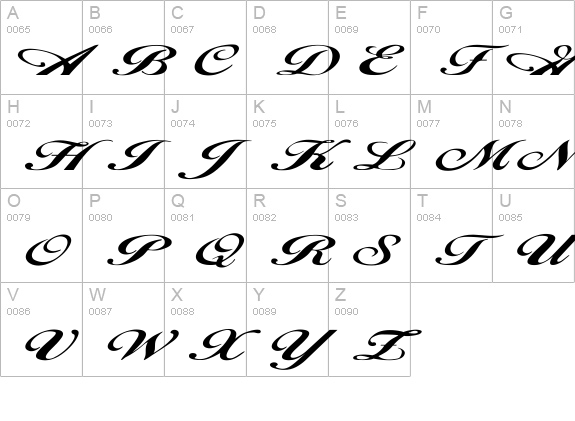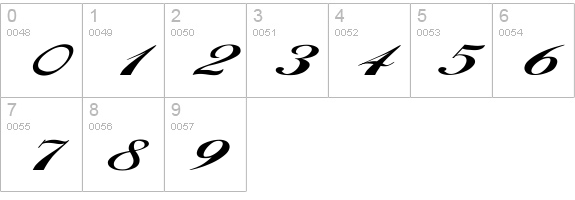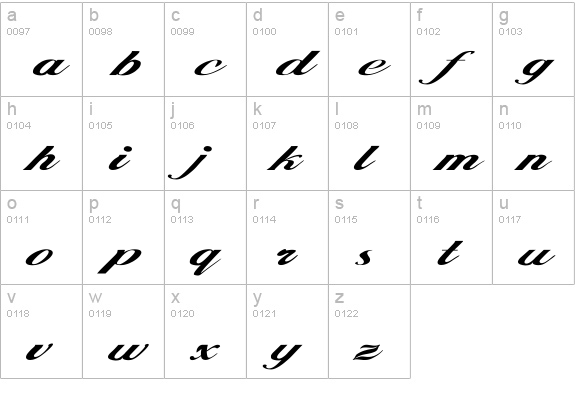
Hancock Ex is a stunning and versatile font that will truly elevate any design project. With its sleek and modern aesthetic, this typeface is perfect for creating eye-catching headlines, logos, and signage. The bold and strong letterforms exude confidence and make a bold statement. But what makes Hancock Ex truly stand out is its unique combination of elegance and power. The carefully crafted curves and sharp edges create a harmonious balance that captivates the eye and commands attention. Whether you are designing for print or digital media, this font will effortlessly add a touch of sophistication to your work. Best of all, Hancock Ex is free to download and use for both personal and commercial projects. You can easily access this font at FontsMarket.com, where you will find a vast collection of high-quality fonts. With just a few clicks, you can enhance your designs with the elegance and professionalism that Hancock Ex brings. So why wait? Download Hancock Ex today and let your creativity soar. Whether you are a designer, a marketer, or simply someone who appreciates beautiful typography, this font is a must-have in your toolkit. With its impeccable style and the freedom to use it in any project, Hancock Ex is sure to become your go-to choice for all your design needs.